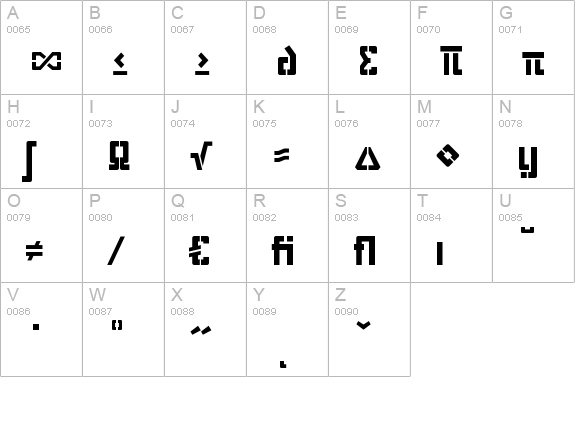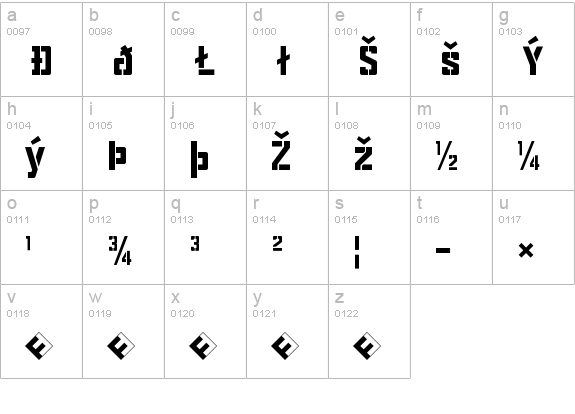
WaterTower-RegularExpert Font Details
WaterTower-RegularExpert is a versatile and highly legible font that exudes elegance and sophistication. With its clean lines and balanced letterforms, this font is perfect for a wide range of design projects, from branding and advertising to editorial and web design. What sets WaterTower-RegularExpert apart is its expertly crafted design, which ensures optimal readability even at small sizes. The attention to detail in each glyph showcases the skill and expertise of the font's designer, making it a truly exceptional choice for any professional design project. One of the most remarkable aspects of WaterTower-RegularExpert is that it is available for free. Yes, you read that right! This stunning font can be downloaded without any cost, making it accessible to designers of all backgrounds and budgets. Simply head over to FontsMarket.com, a reputable online font resource, to freely download WaterTower-RegularExpert and start incorporating its beauty and versatility into your designs. Whether you're working on a logo, a website, or a magazine layout, WaterTower-RegularExpert will elevate your design to new heights. Its refined and timeless aesthetic ensures a touch of sophistication, while its exceptional legibility guarantees that your message will be conveyed with clarity and impact. Don't miss out on this incredible opportunity to enhance your design arsenal. Download WaterTower-RegularExpert for free today at FontsMarket.com and unlock its full potential for your next creative endeavor.